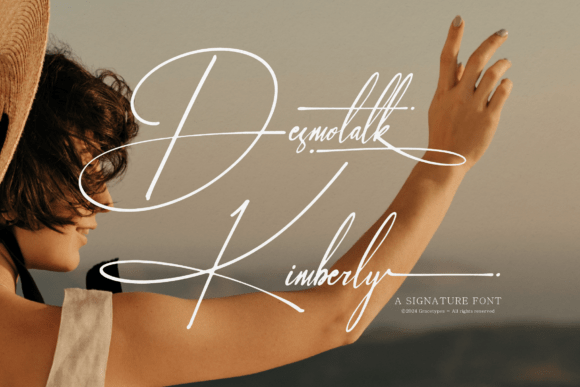
Desmotalk Kimberly Font: A Delicate Handwritten Font for Your Creative Projects
Are you looking for a beautiful and elegant font to elevate your creative projects? Look no further than Desmotalk Kimberly Font. This delicate handwritten font is perfect for a wide range of applications, from logos and branding to homeware designs, product packaging, and more.
What is Desmotalk Kimberly Font?
Desmotalk Kimberly Font is a carefully crafted handwritten font that exudes a sense of elegance and sophistication. Its delicate strokes and curves make it perfect for projects that require a touch of personality and whimsy. Whether you’re working on a logo, a poster, or a product design, Desmotalk Kimberly Font is sure to add a special touch to your work.
What Projects is Desmotalk Kimberly Font Suitable For?
Desmotalk Kimberly Font is a versatile font that can be used for a wide range of projects, including:
- Logos: Create a unique and memorable logo for your brand with Desmotalk Kimberly Font.
- Branding projects: Use Desmotalk Kimberly Font to add a touch of elegance to your branding materials, such as business cards and letterheads.
- Homeware designs: Add a personal touch to your homeware designs, such as ceramics, textiles, and wallpaper.
- Product packaging: Make your product packaging stand out with Desmotalk Kimberly Font.
- Mugs: Create beautiful and unique mug designs with Desmotalk Kimberly Font.
- Quotes: Add a touch of elegance to your quotes and typographic prints.
- Posters: Create eye-catching posters with Desmotalk Kimberly Font.
- Shopping bags: Design reusable shopping bags with Desmotalk Kimberly Font.
- T-shirts: Create unique and stylish t-shirt designs with Desmotalk Kimberly Font.
- Book covers: Add a touch of elegance to your book covers with Desmotalk Kimberly Font.
- Name cards: Create beautiful and elegant name cards with Desmotalk Kimberly Font.
- Invitation cards: Design stunning invitation cards with Desmotalk Kimberly Font.
- Greeting cards: Create heartfelt greeting cards with Desmotalk Kimberly Font.
- Labels: Use Desmotalk Kimberly Font to add a touch of elegance to your labels.
- Photography: Add a watermark to your photos with Desmotalk Kimberly Font.
- Special events: Use Desmotalk Kimberly Font to create unique and memorable designs for special events, such as weddings and birthdays.
Why Choose Desmotalk Kimberly Font?
There are many reasons why Desmotalk Kimberly Font is a great choice for your creative projects. Here are a few:
- Elegant and sophisticated: Desmotalk Kimberly Font has a delicate and elegant feel that adds a touch of sophistication to any project.
- Versatile: Desmotalk Kimberly Font can be used for a wide range of projects, from logos and branding to homeware designs and product packaging.
- Easy to read: Despite its delicate nature, Desmotalk Kimberly Font is easy to read and understand, making it perfect for projects that require a clear and concise message.
- Unique: Desmotalk Kimberly Font has a unique and distinctive feel that sets it apart from other fonts.
How to Use Desmotalk Kimberly Font?
Using Desmotalk Kimberly Font is easy. Here are a few tips to get you started:
- Pair it with other fonts: Desmotalk Kimberly Font pairs well with other fonts, such as sans-serif fonts and script fonts.
- Experiment with different sizes: Desmotalk Kimberly Font looks great in a variety of sizes, from small and delicate to large and bold.
- Use it for headings and titles: Desmotalk Kimberly Font is perfect for headings and titles, adding a touch of elegance and sophistication to any project.
- Add a personal touch: Use Desmotalk Kimberly Font to add a personal touch to your projects, such as a handwritten note or a signature.
Desmotalk Kimberly Font is a beautiful and elegant handwritten font that is perfect for a wide range of creative projects. Its delicate strokes and curves make it a great choice for projects that require a touch of personality and whimsy. Whether you’re working on a logo, a poster, or a product design, Desmotalk Kimberly Font is sure to add a special touch to your work.